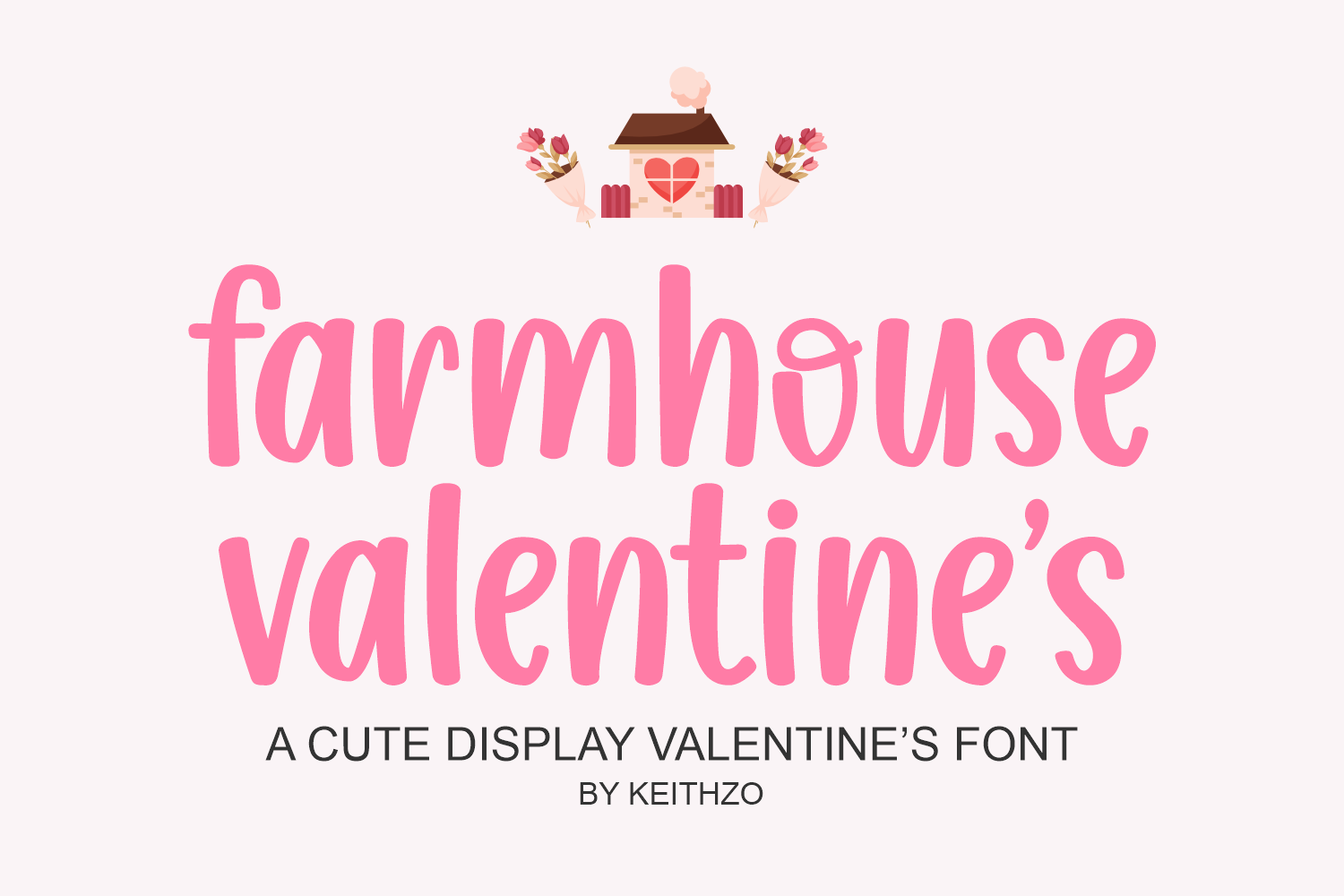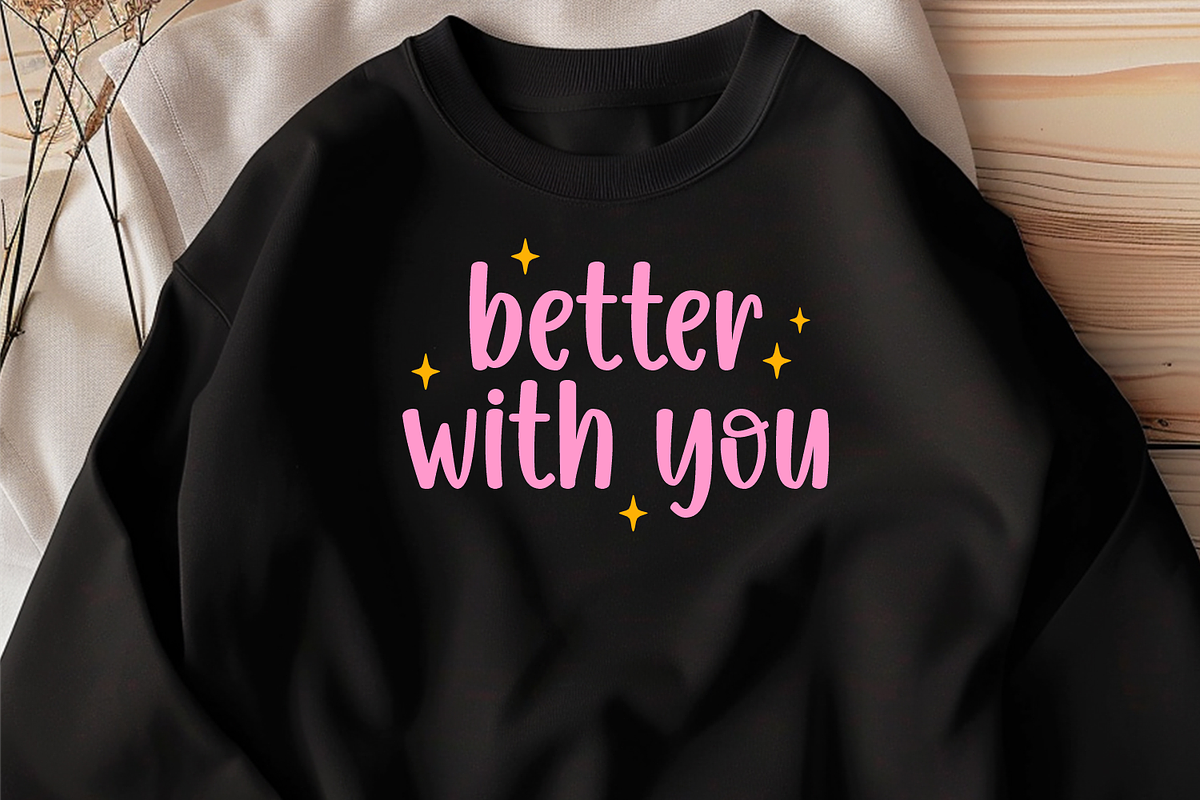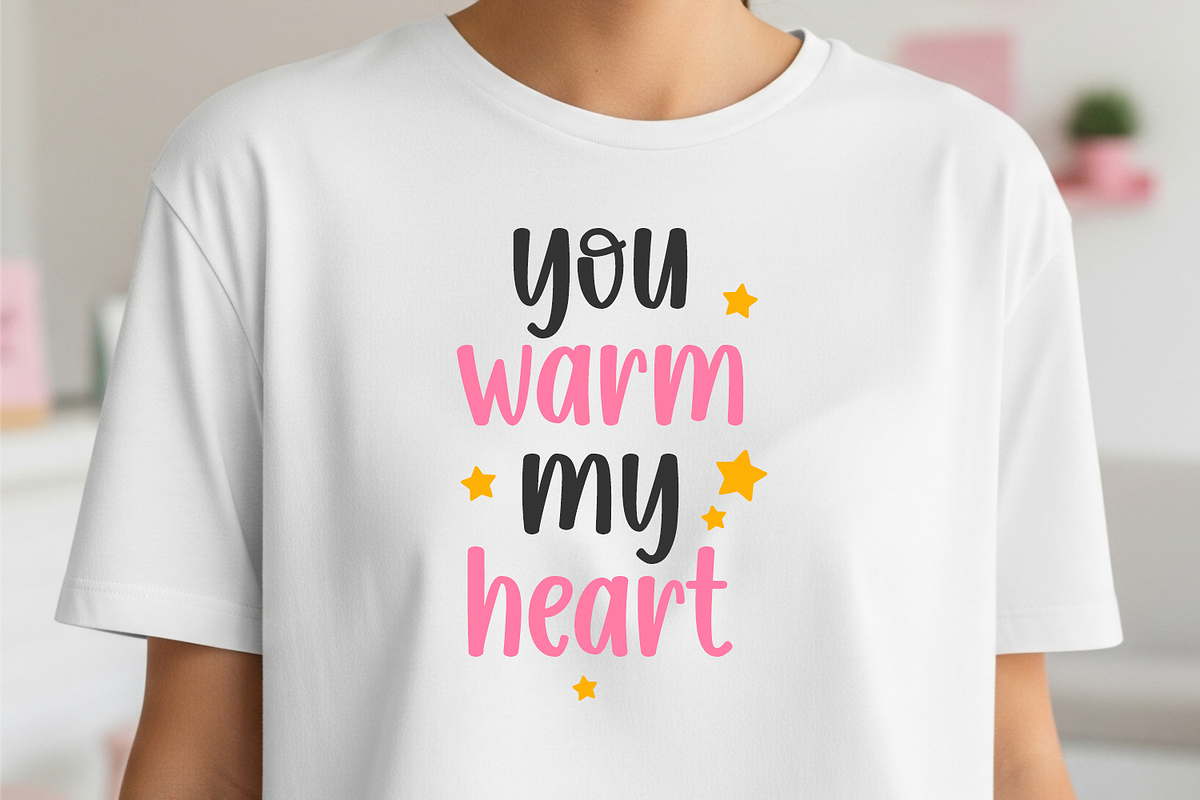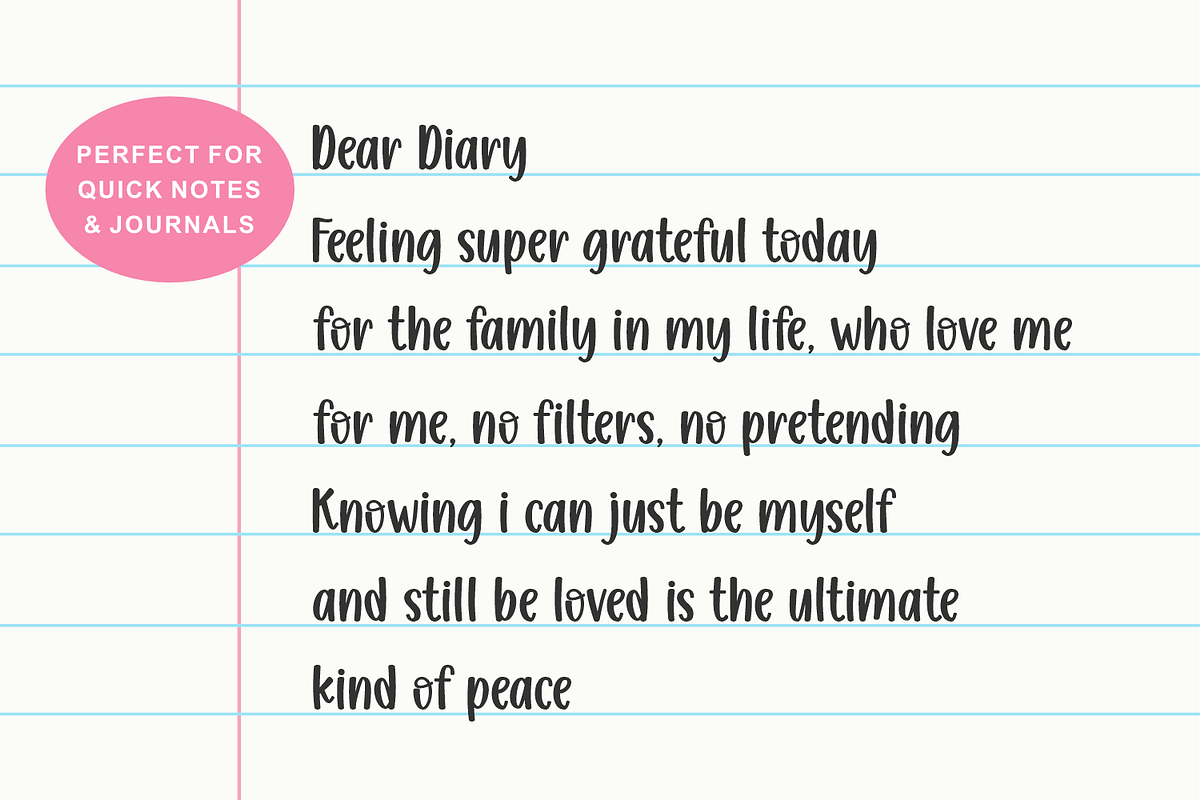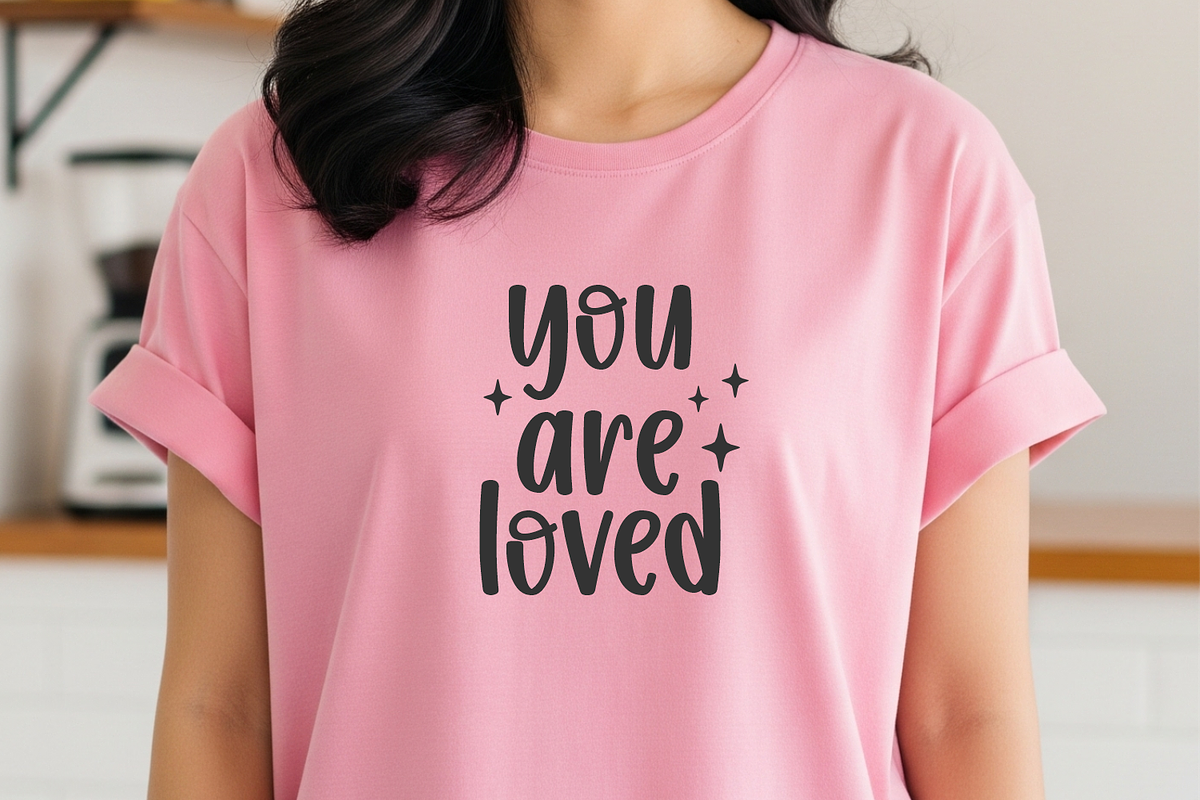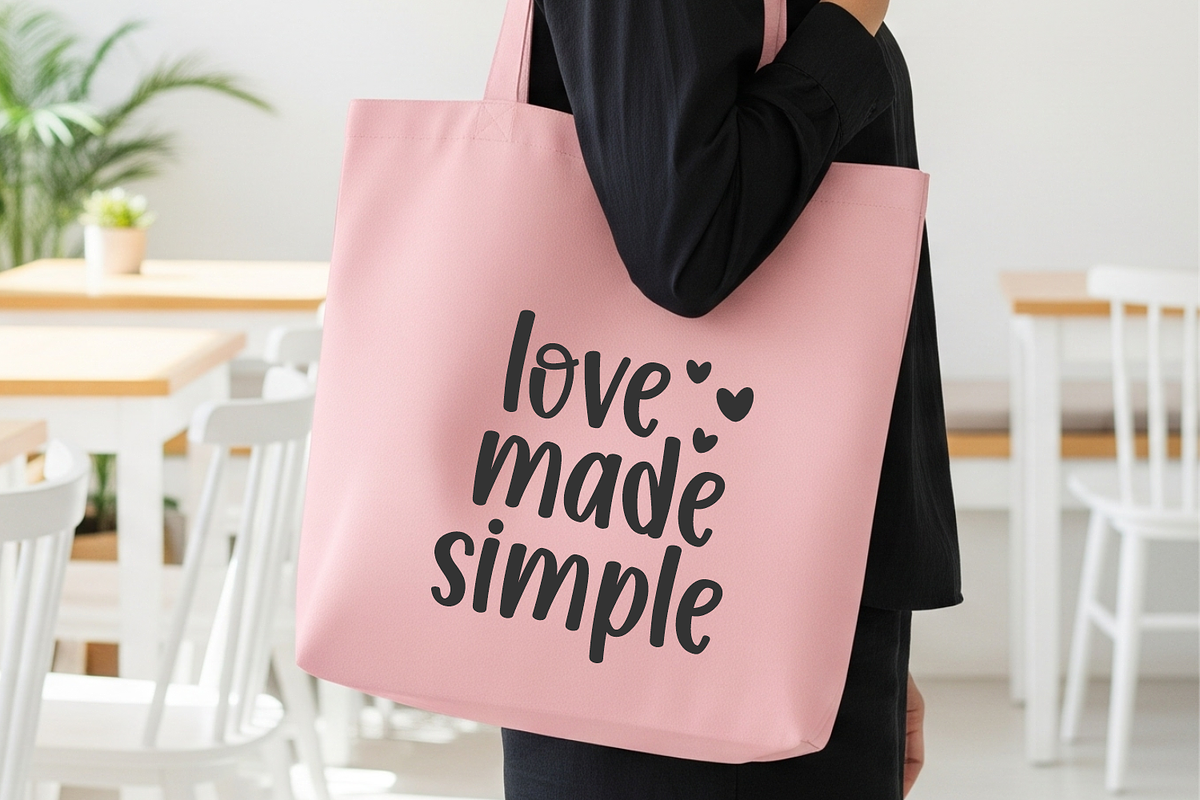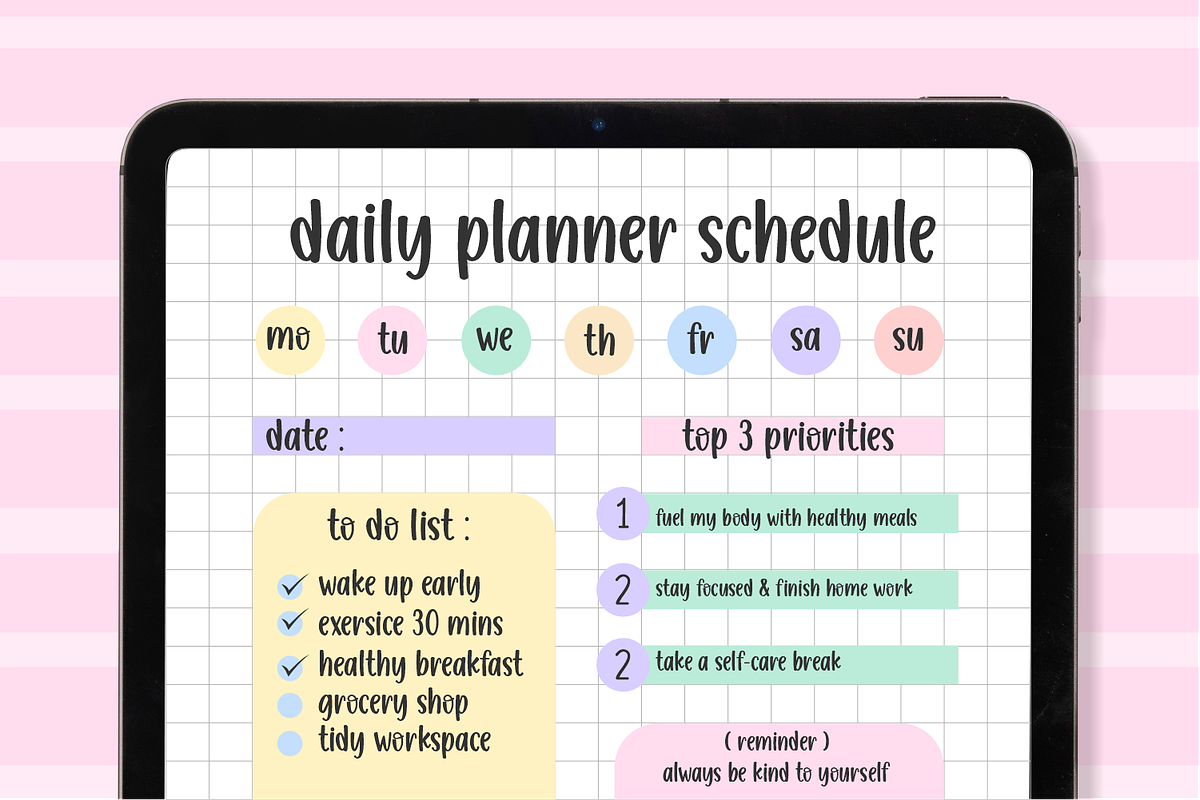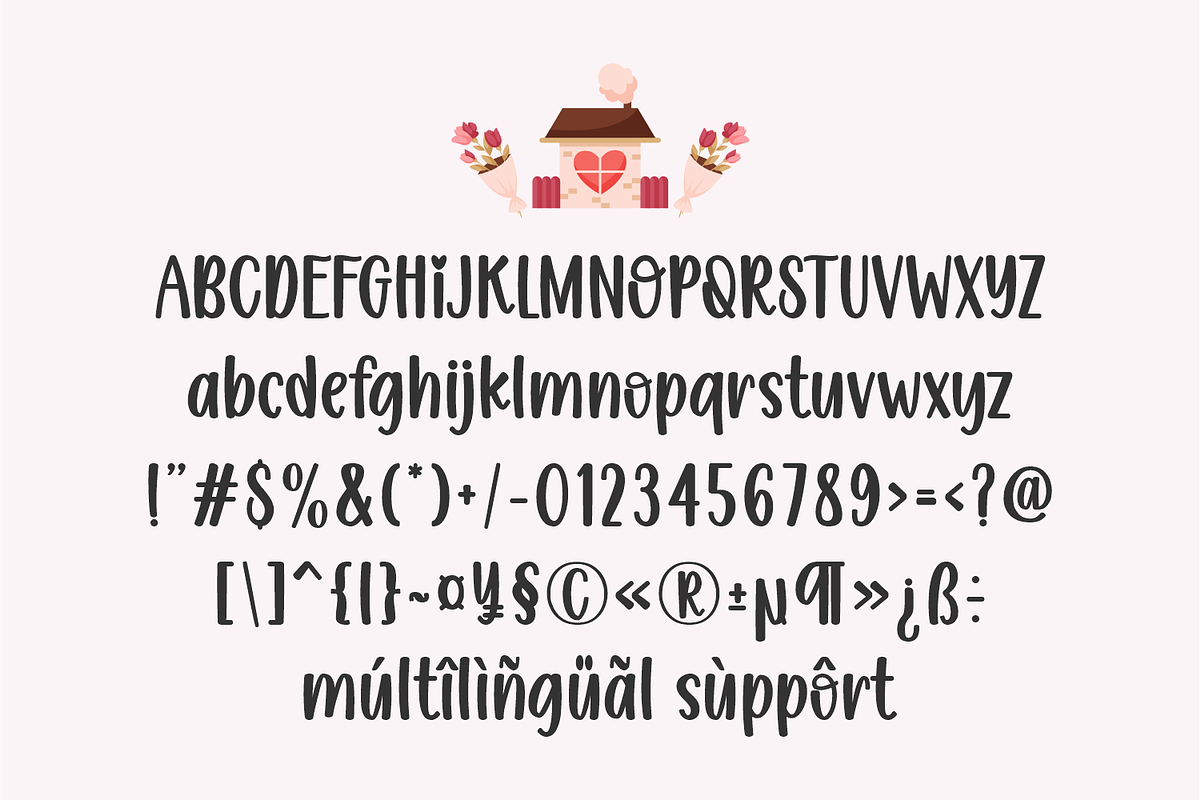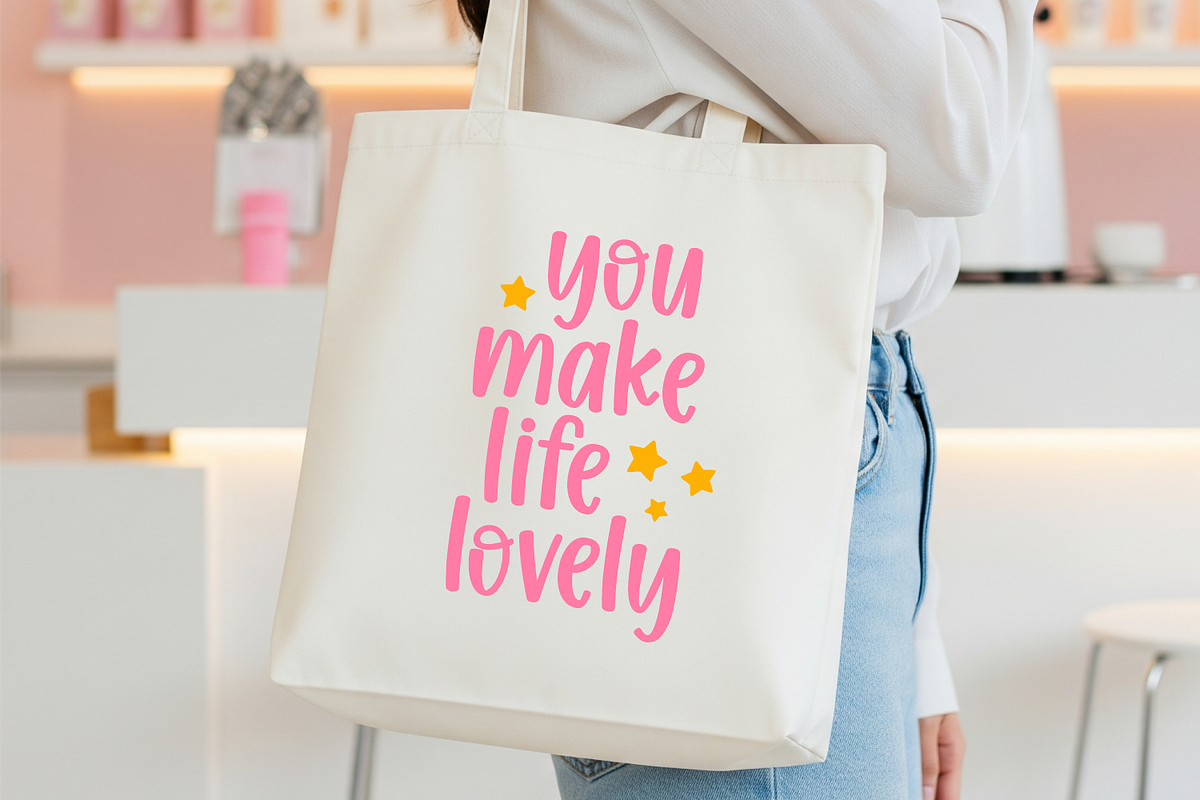
Farmhouse Valentine's Font
Experience the charm of countryside simplicity woven with tender sentiments in the Farmhouse Valentine font.
This handwriting-inspired typography design embodies the comforting and familiar appeal of farmhouse decor, elevated by a tasteful touch of romance. Crafted with a seamless fusion of natural rhythm and clean lines, it strikes the ideal balance between character and clarity.
Farmhouse Valentine adds a sense of warmth and ‘lovingly handmade’ allure to your Valentine’s Day greetings, sentimental gift tags, and cozy home accents. It's tidy, readable characters morph your correspondence into a delightful visual treat.
Perfect for mapping out your day, this font breathes life into digital planners, day-to-day schedules, habit journals, and personal diaries – imparting a blend of organization and aesthetic appeal. This font is superbly suited for rural branding, pantry labels, farmhouse-style signage, and country-inspired wedding stationery requiring a more personal, handwritten feel. Invoke a sense of nostalgia and comfort with each stroke of Farmhouse Valentine.